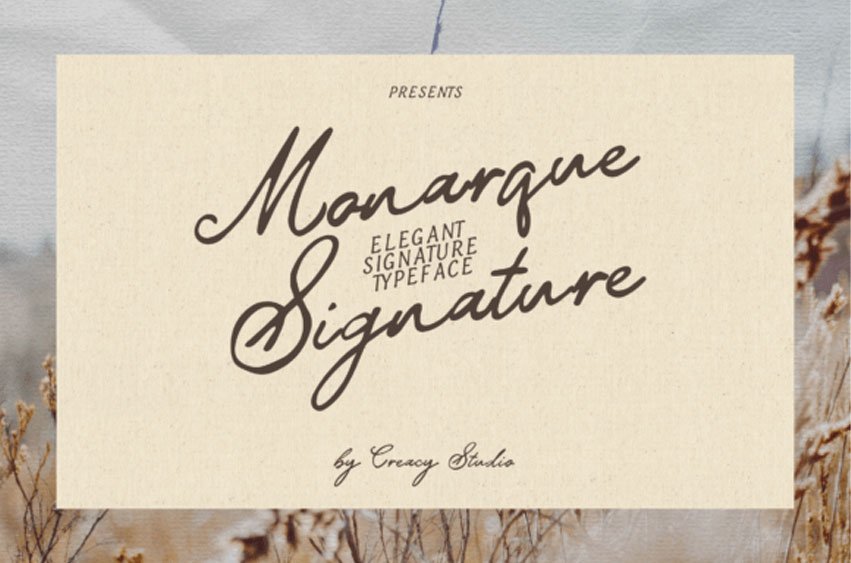
Monarque Signature Font
Monarque Signature Font Signature, an exquisite hand-scripted typeface brilliantly blending enduring allure of classical charm with the trendy traces of contemporary signature style. It’s the absolute paragon for crafting high-end branding, slick typography, and compelling visuals.
Monarque Signature is an indispensable asset for logo design, corporate identity development, wedding invitation personalization, designing social media graphics, packaging design projects, adding a refined touch to photography watermarks, or composing elegant editorial & magazine layouts.